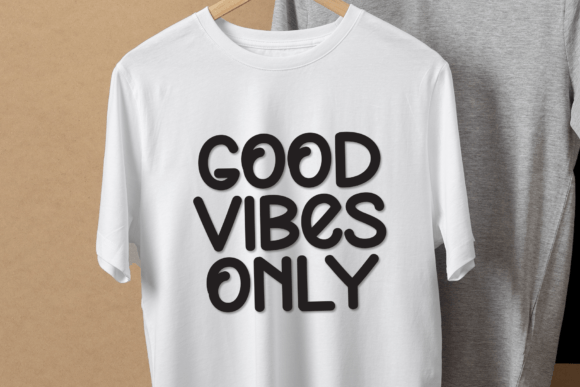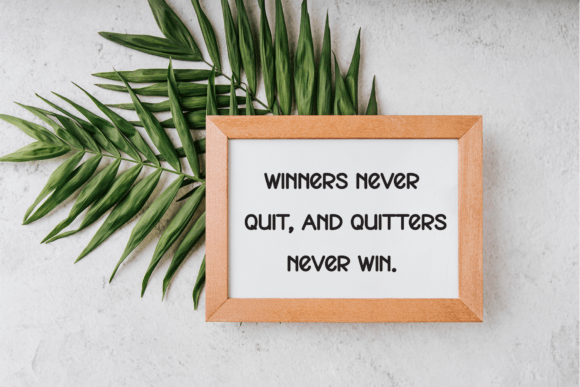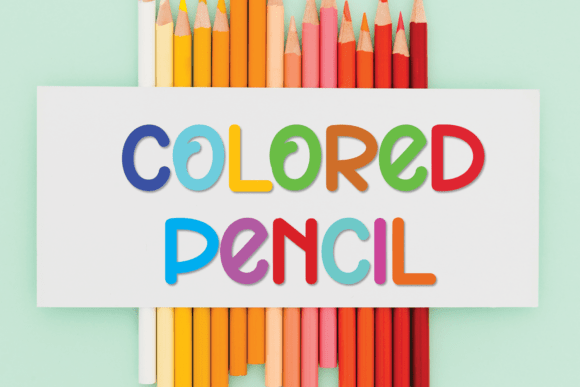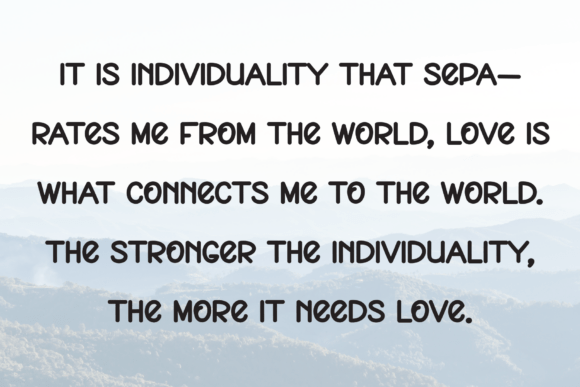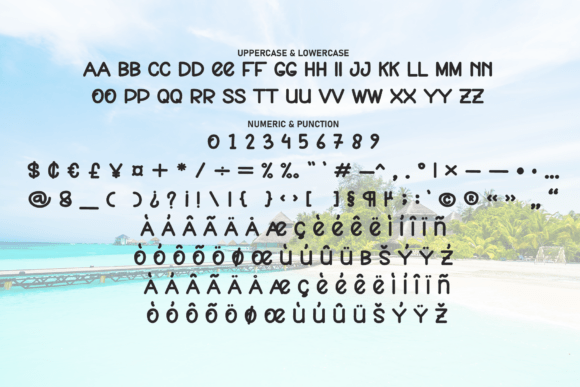
Who hasn’t felt the thrill of rummaging through a treasure trove of craft supplies, searching for the perfect combination of colors and textures to bring their creative vision to life? It’s that moment of pure joy, when all the pieces come together, that inspires us to keep pushing the boundaries of what’s possible. And for designers, finding the perfect font can be just as exhilarating.
Enter the Beach Summer Font – a charming display font that’s bursting with personality and warmth. This delightful typographic treat is perfect for adding a playful twist to your designs, from heartfelt wedding invitations to sentimental cards and everything in between. Whether you’re a seasoned pro or just starting out, the Beach Summer Font is a versatile tool that’s sure to bring a smile to your face and a touch of magic to your creations.
Key Features of “Beach Summer Font”
- Font Style: A casual, playful, and beach-inspired font perfect for summer-themed designs, such as beach vacation brochures, summer sale promotions, or beach-themed websites.
- Character Count: 250+ characters, including uppercase and lowercase letters, numbers, and punctuation marks.
- Unique Characteristics: Features a relaxed, handwritten feel with subtle wave-like flourishes and rounded edges, giving it a unique and eye-catching appearance.
Beach Summer Font Review
When I first laid eyes on the Beach Summer Font, I was immediately drawn to its carefree, summery vibe. The font’s playful use of curves and rounded edges ✨ really captures the essence of a beachy getaway. The font’s overall aesthetic is perfect for projects that need a touch of laid-back cool.
One of the standout features of Beach Summer Font is its versatility. The font comes in a range of weights and styles, making it easy to use for everything from headlines to body text. I also appreciate the font’s OpenType features, which allow for some really fun and creative uses of ligatures and swashes.
- ⚠️ The font’s design can be a bit too playful for some projects. If you’re looking for a font with a more serious or professional tone, Beach Summer Font might not be the best choice.
- ⚠️ The font’s OpenType features can be a bit overwhelming for users who are new to font design. It may take some experimentation to get the most out of the font’s advanced features.
Overall, I think the Beach Summer Font is a great choice for projects that need a fun and carefree vibe. While it may not be the best choice for every project, I think it’s a great addition to any designer’s toolkit.
The Beach Summer Font is perfect for designing beach-themed projects, such as:
- Summer promotional materials
- Beach party invitations
- Travel brochures
For optimal results, use the Beach Summer Font in conjunction with bright, pastel colors and fun, playful graphics.
Alternatives to Beach Summer Font
Pacifico is a beautiful script font that resembles handwriting. It’s perfect for creating a relaxed and casual atmosphere, ideal for summer-themed designs, travel, and lifestyle projects. Pacifico is more elegant and refined compared to Beach Summer Font, making it suitable for high-end designs.
Great Vibes is a fun and energetic font that’s great for creating a lively and carefree atmosphere. It’s perfect for summer-themed designs, outdoor events, and travel projects. Great Vibes is more playful and bold compared to Beach Summer Font, making it suitable for bold and eye-catching designs.
Lato is a clean and modern sans-serif font that’s perfect for creating a sophisticated and elegant atmosphere. It’s ideal for summer-themed designs, corporate projects, and luxury brands. Lato is more versatile and professional compared to Beach Summer Font, making it suitable for a wide range of designs.